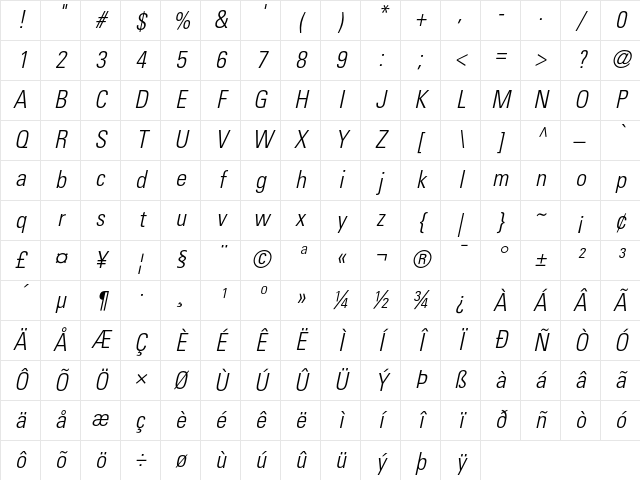
Univers 47 Condensed Light Oblique
Style: 47 Condensed Light Oblique
Design Context for Univers
Univers is a composed and adaptable typeface that performs quietly and consistently across a wide range of design contexts. The slanted form adds forward momentum and visual energy. Its slender proportions lend an understated elegance to any composition. Its narrow stance lets it pack a punch even in space-constrained designs.
Pro Tip: Use Univers for emphasis, pull quotes, and subheadings where its slanted energy can add rhythm to the layout.